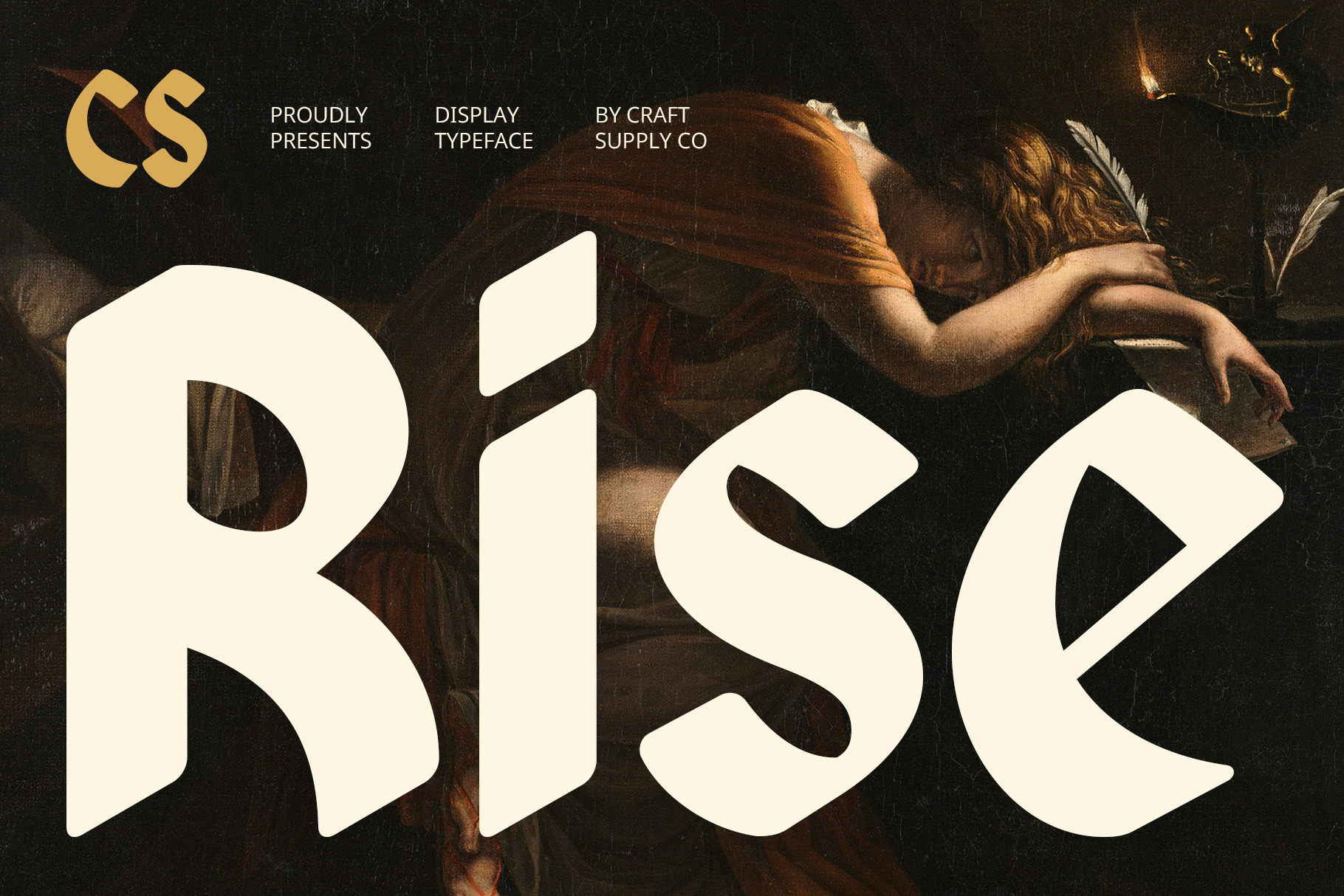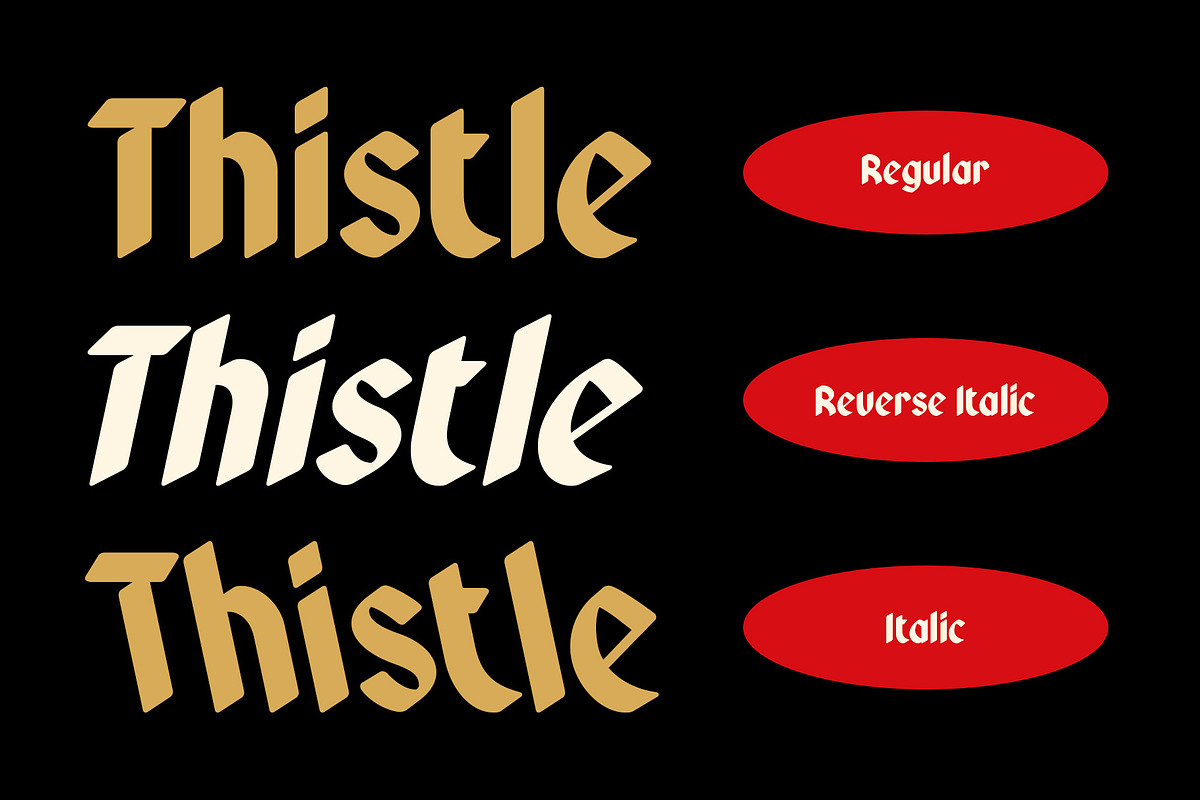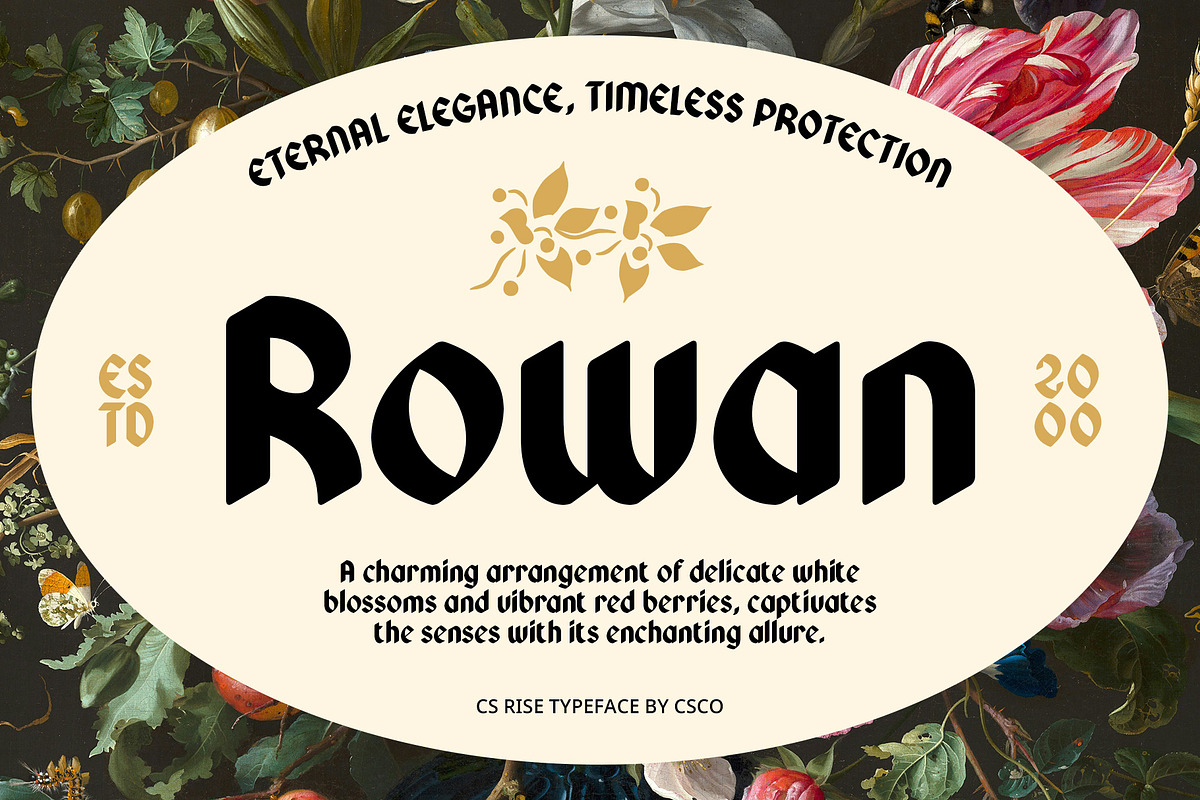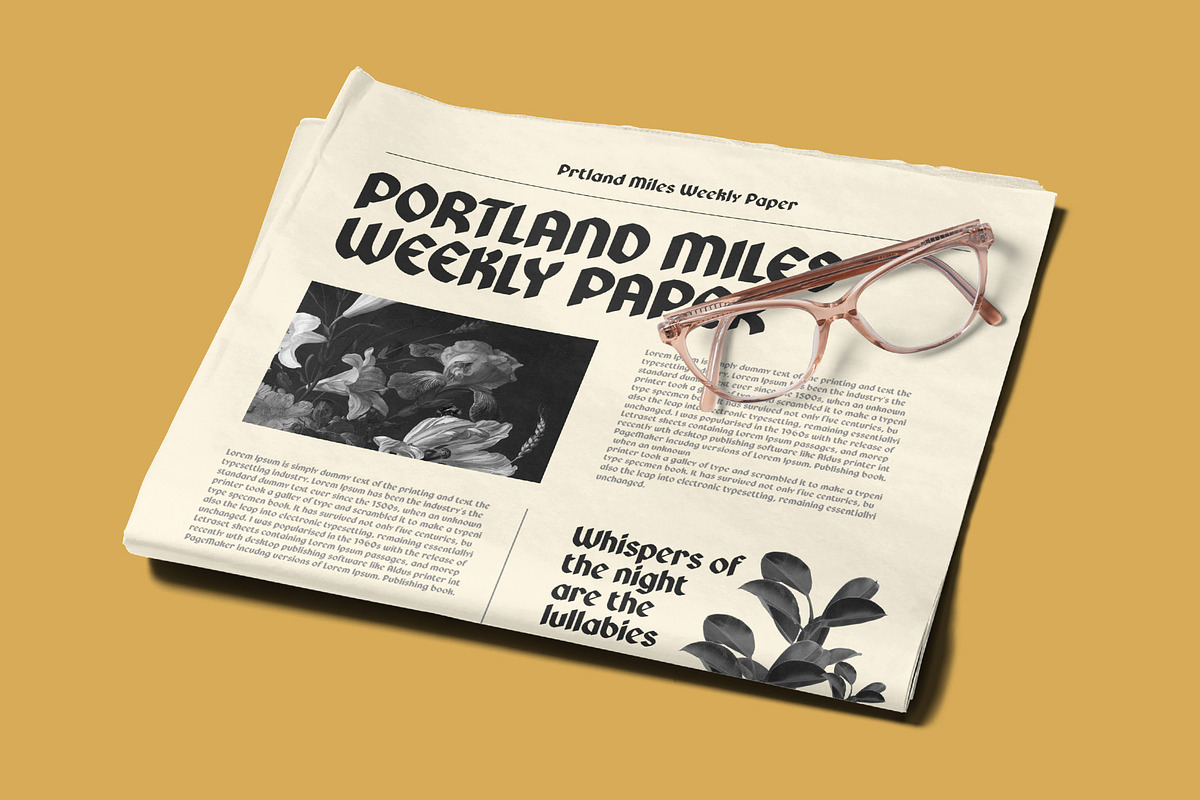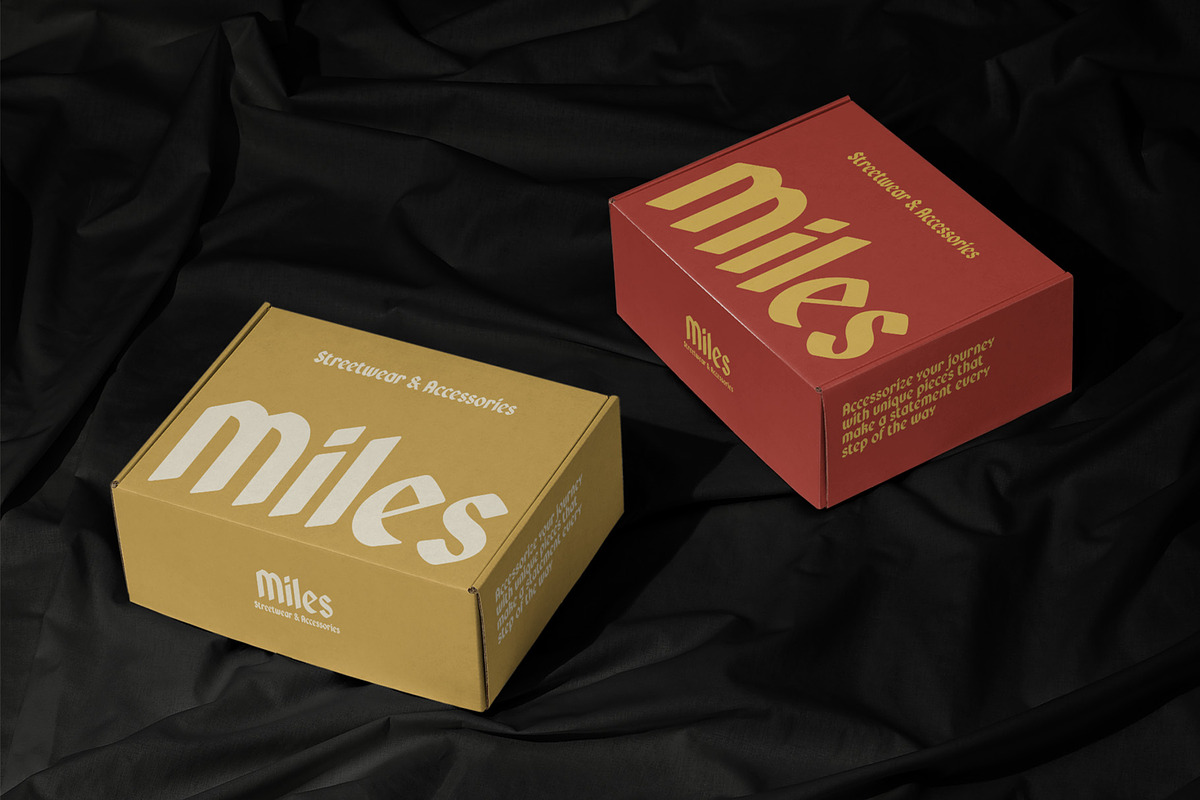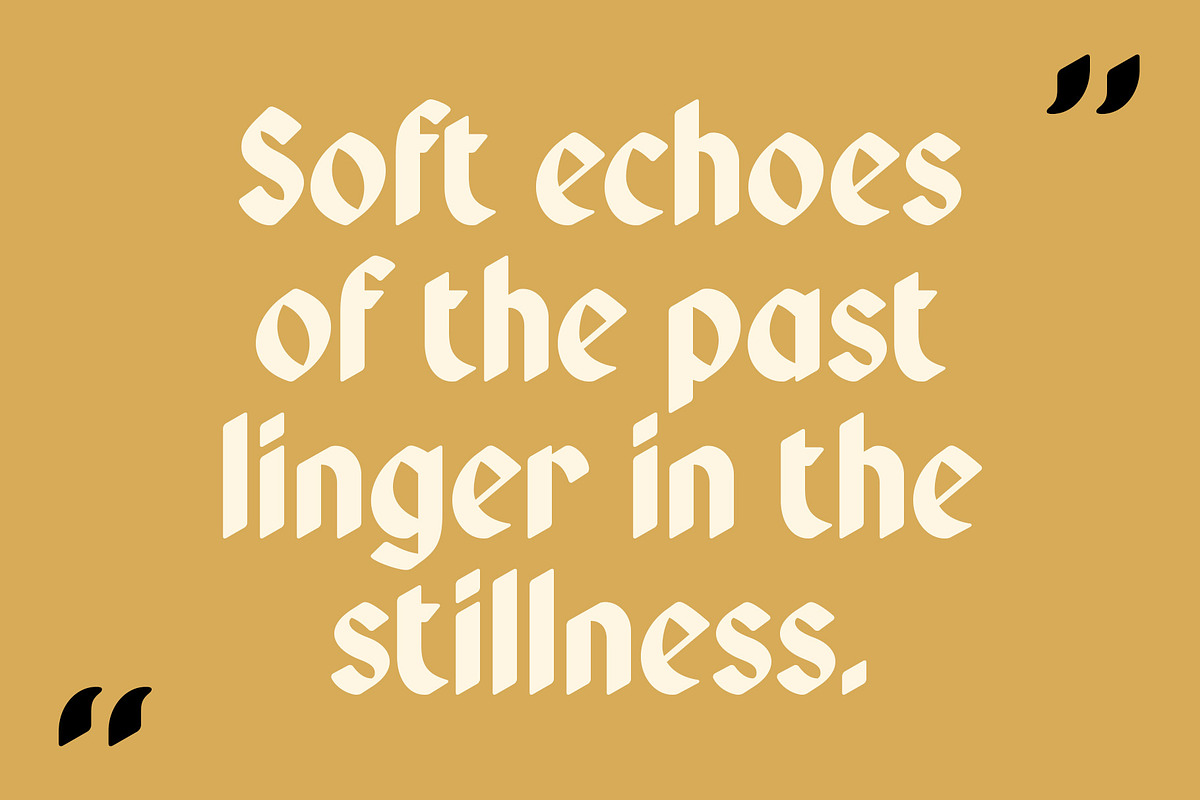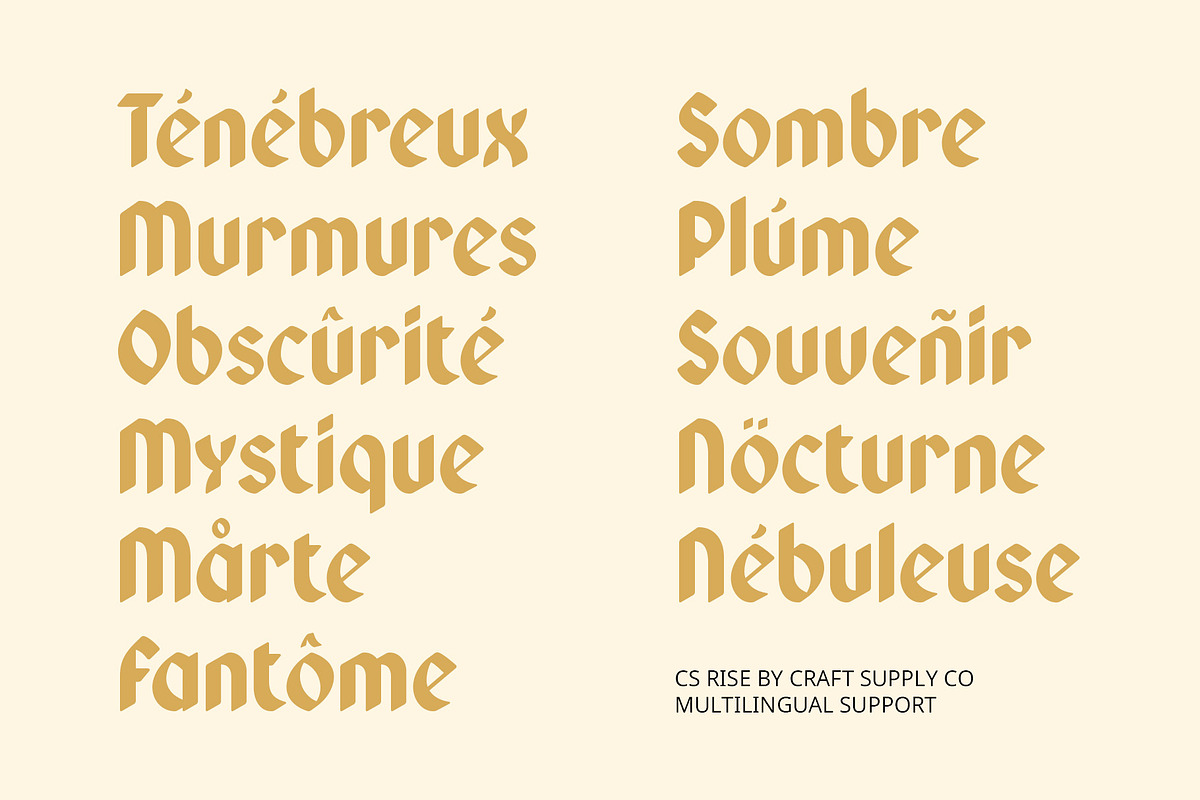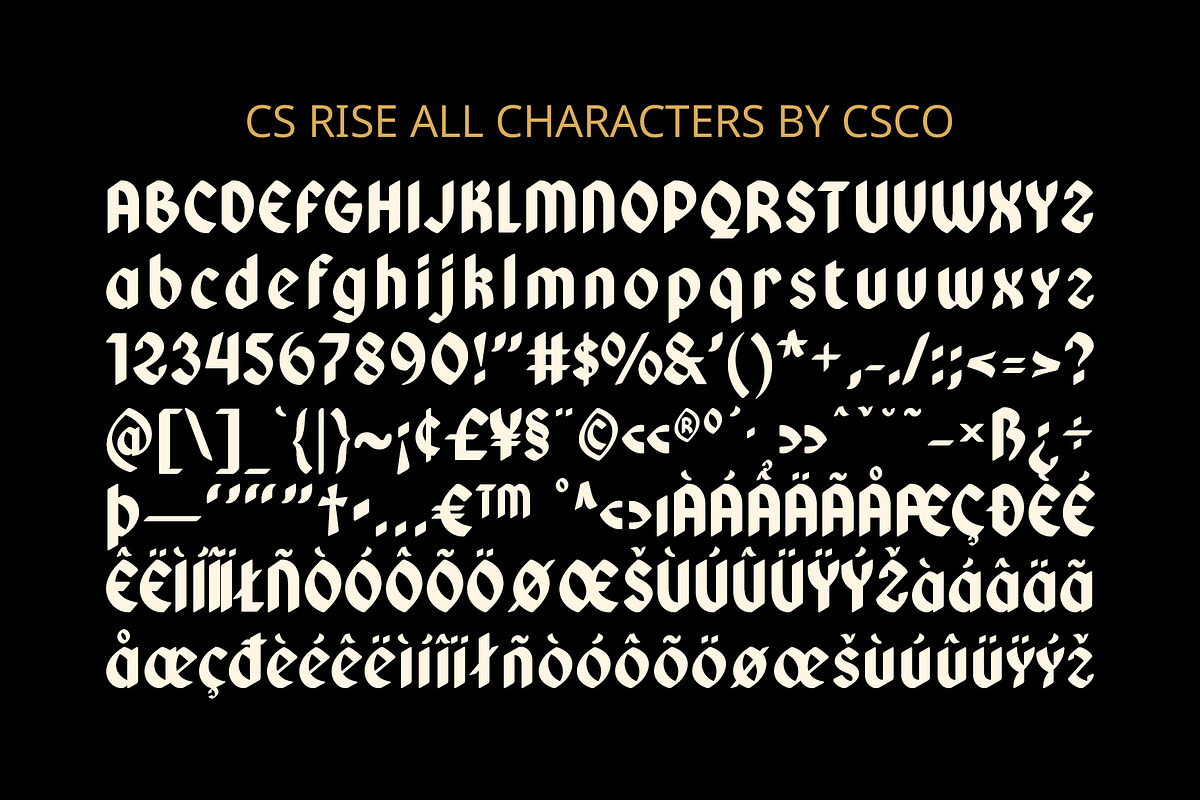
CS Rise – Blackletter Font
A Modern Twist on Gothic Elegance CS Rise is a bold display font that combines the sharp elegance of traditional blackletter with rounded, softer edges, offering a unique fusion of historical charm and contemporary appeal. This distinctive typeface captures the powerful, dramatic essence of blackletter while providing a more approachable and modern feel, making it perfect for designs that seek to make a strong visual statement.
Bold, Striking Design With its bold form and rounded edges, CS Rise stands out with an impressive presence. The font’s traditional sharpness and geometric characteristics evoke the classic gothic style, but the rounded elements soften its overall appearance, making it suitable for a wider range of applications. The bold structure ensures excellent visibility, making it ideal for impactful headlines, posters, and designs that need to capture attention immediately.
Perfect for Modern Branding and Eye-Catching Headlines CS Rise is a versatile font, offering a blend of sophistication and modernity. It is perfect for branding projects that aim to convey strength and elegance while maintaining an approachable vibe. Whether used for modern posters, eye-catching headlines, or logos, this font provides a bold yet refined look that seamlessly integrates gothic influence with a contemporary edge.